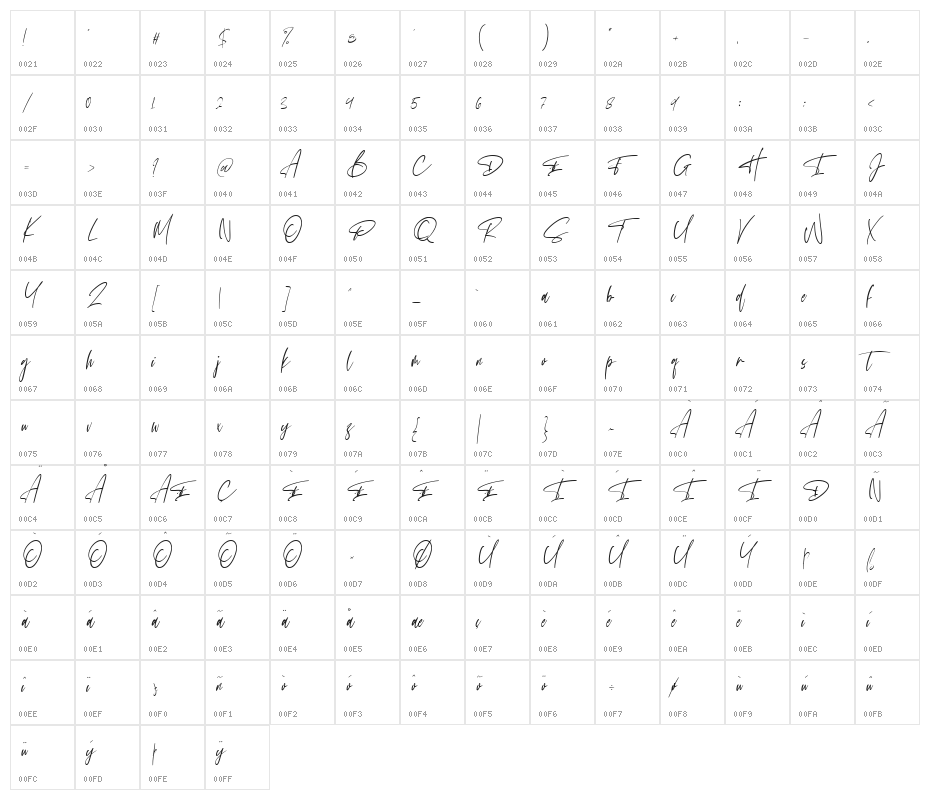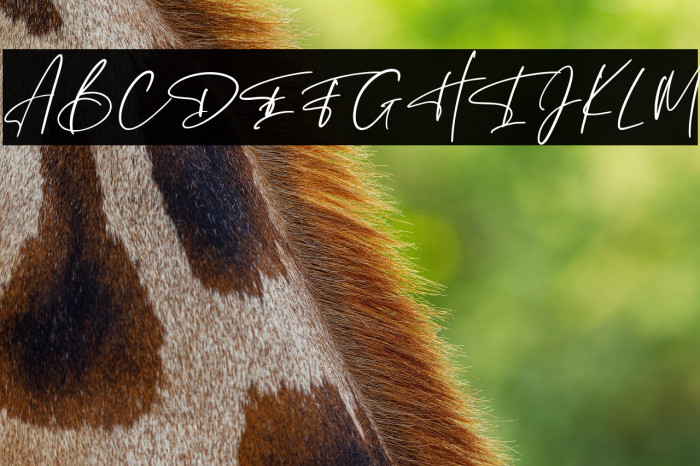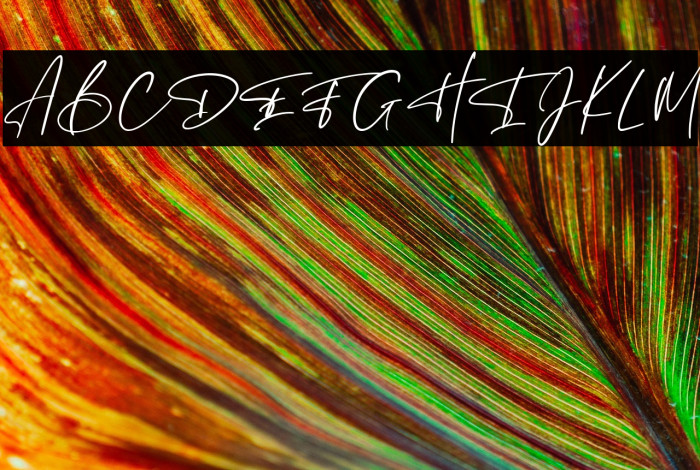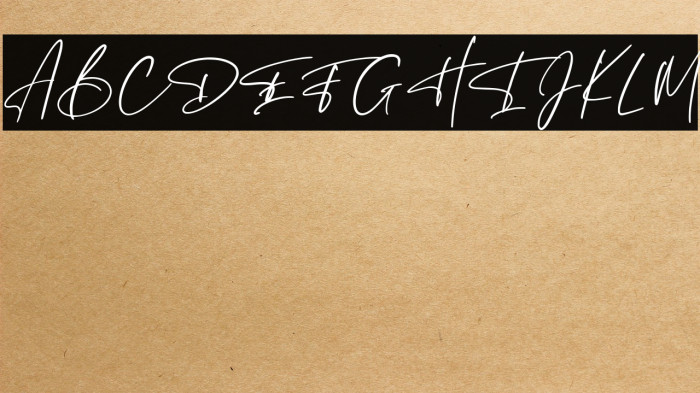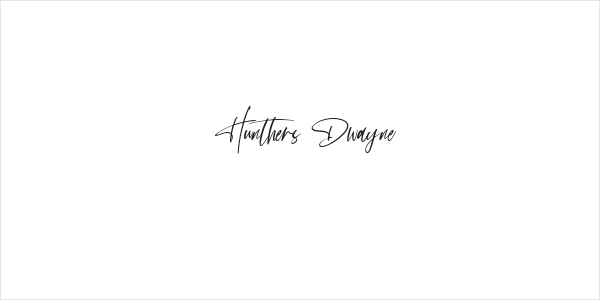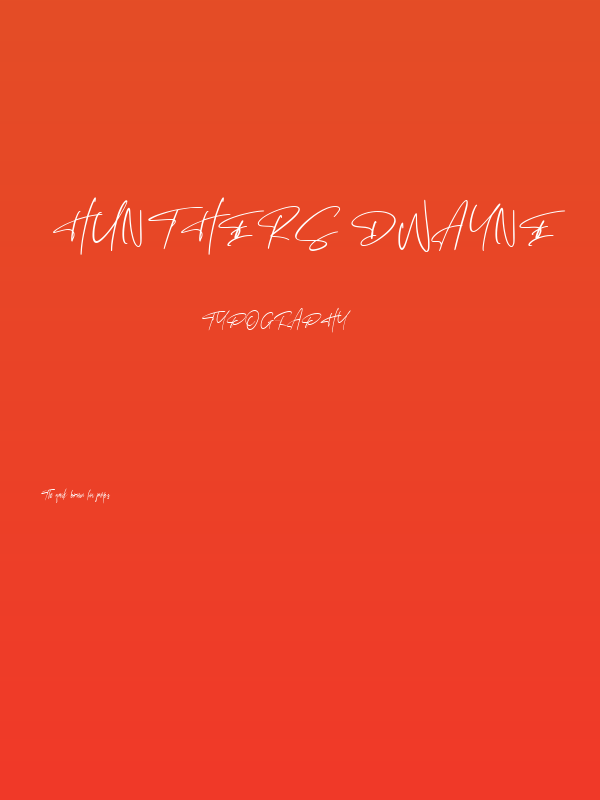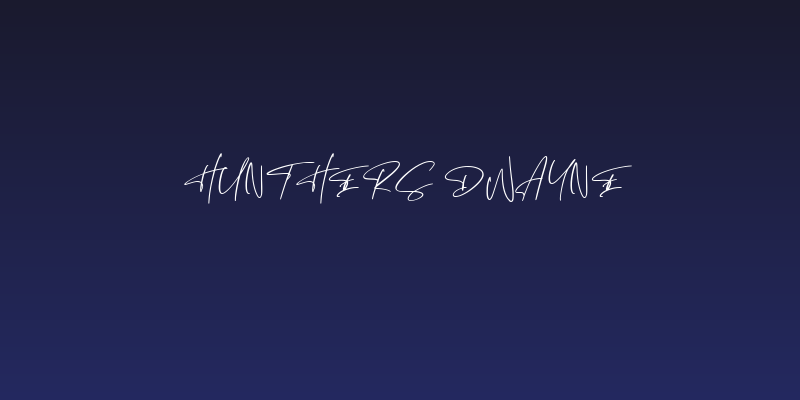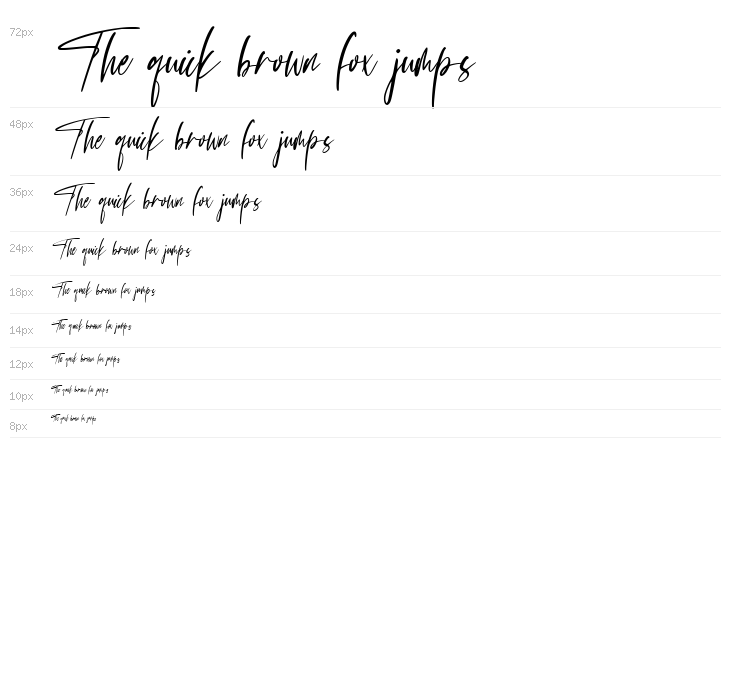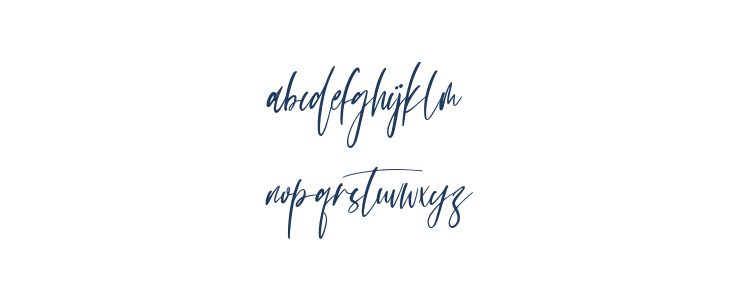
Hunthers Dwayne Font
Hunthers Dwayne Description
This font features an elegant, flowing script style that mimics the fluidity of natural handwriting. The uppercase letters are characterized by their sweeping curves and elongated strokes, giving them a sense of movement and grace. The lowercase letters maintain a consistent style, with a slightly more compact form that complements the uppercase. The numerals are designed with a similar flair, ensuring cohesion across all characters. Special characters are thoughtfully integrated, maintaining the overall aesthetic. This font exudes a modern yet timeless appeal, making it versatile for various design applications.